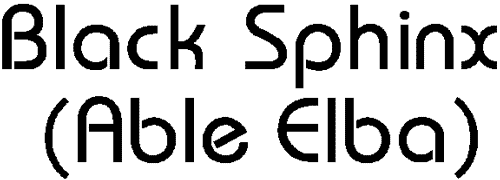
4.0 Latin Decorative
4.1 Family Kind
Sub-digits
0-Any
1-No Fit
2-Latin Text
3-Latin Hand Written
4-Latin Decorative
5-Latin Symbol
Description
Latin Decorative faces are those that are designed more for impact than readability. Usually Decoratives are used singly or in small groups, for special purposes. Small cap fonts are also included in this group because they have become unusual enough to be considered special purpose fonts.
4.2 Class
Sub-digits
0-Any
1-No Fit
2-Derivative
3-Non-standard Topology
4-Non-standard Elements
5- Non-standard Aspect
6-Initials
7-Cartoon
8-Picture Stems
9-Ornamented
10-Text and Background
11-Collage
12-Montage
Description
The class is the general look and feel of the face. Faces should be classed with as low a digit as is reasonable. Derivative is Decoratives that are closely derived standard text forms. Non-standard Topology has unusual forms for entire letters but still uses standard stems. Non-standard Elements has usual forms but unusual treatments of parts of them, such as serifs or ascenders. Non-standard Aspect has the usual letter forms but unusual proportions such as very high or very low waists. Initials is for faces that only have majuscule characters, no minuscules. Often these characters are highly ornamented. Cartoon faces have the entire letter made up of a single picture that form the outline of the character. Picture Stem faces have each stem made up of a picture or pictures and the letters made from groups of these elements. Ornamented faces have additional flourishes and details added to the character. Text and Background faces have the characters displayed as the absence of pattern on a patterned background. In Collage faces the characters are made up of repeating nonstandard elements. In Montage faces the characters are made up of nonrepeating nonstandard elements.
Examples
Figure 22 - Decorative Classes
2 - Derivative
3 - Non-standard Topology
4 - Non-standard Elements
5 - Non-standard Aspect
6 - Initials
7 - Cartoon
8 - Picture Stems
9 - Ornamented
10 - Text and Background
11 - Collage
12 - Montage
4.3 Weight
Sub-digits
0-Any
1-No Fit
2-Very Light
3-Light
4-Thin
5-Book
6-Medium
7-Demi
8-Bold
9-Heavy
10-Black
11-Extra Black
Description
The Weight digit classifies the appearance of a fonts’ stroke thickness in relation to its height. This is expressed as a ratio taken from two measurements on the uppercase E glyph.
Measurements
Two measurements are required for classification of the Weight digit.
CapH
CapH (Figure 2) is the cap height and is measured on the uppercase H, from the top-most Y-extent to the bottom-most Y-extent at the theoretical midline of the left vertical stroke. The midline is chosen to avoid serifs that extend the height or depth of the character shape. This is a vertical measurement even if the glyph is italic or oblique.
WStem(E)
The width of the vertical stem, WStem(E) (Figure 5), is measured horizontally on the uppercase E at a point halfway between the upper two arms. This measurement is the width of the vertical stem, or back bone, of the character and is taken perpendicular to the stem. In the case of an oblique letter, the horizontal axis is shifted to be perpendicular to the stem. Note: For the purpose of serif designs, this measurement is applied to the large (400 point) uppercase I glyph.
Calculated Variables
Only one calculated variable (WeightRat) is used to determine the Weight digit for the PANOSE Typeface Matching System. The WeightRat variable is calculated by dividing the cap height by the width of the vertical stem.
WeightRat = CapH / WStem(E)
Classification
To determine the exact PANOSE Weight digit, round the WeightRat value to two decimal places and match it in the following table:
0-Any
1-No fit
2- Very Light………………WeightRat ³ 35
3-Light……………….18 £WeightRat < 35
4-Thin………………..10 £WeightRat < 18
5-Book……………….7.5 £WeightRat < 10
6-Medium……………5.5 £WeightRat < 7.5
7-Demi……………….4.5 £WeightRat < 5.5
8-Bold……………….3.5 £WeightRat < 4.5
9-Heavy……………..2.5 £WeightRat < 3.5
10-Black……………..2.0 £WeightRat < 2.5
11-Extra Black……………..WeightRat < 2.0
Notes
The tolerances of the weight classification have been determined by testing a variety of fonts. While this has provided reasonable averages for the ranges of weights, these will not always directly correspond with a font’s external name. It is not uncommon to have a font that contains the word “Bold” in the name that actually classifies as 7-Demibold.
In addition, certain families that have a surplus of font weights may not progress smoothly through the differing classification options. It is, however, rare that two fonts within the same family will have two weights that exist in the same classification category. Notify Hewlett-Packard of any cases where this occurs.
Caution on measurements: When measuring a design with a highly rounded or bowed inside stem, be certain to calculate the correct theoretical edge for the location of the stem edge. Curved stems can alter the measurements for classification significantly enough to alter the resulting category. Very ragged or highly ornamented stems can also throw this measure off. In such cases, try to pick an “average” width by looking at the face.
13 - Cursive
14 - Blackletter
15 - Swash Variance
4.10 Range of Characters
Sub-digits
0-Any
1-No Fit
2-Extended Collection
3-Litterals
4-No Lower Case
5-Small Caps
Description
This digit quantifies the range of characters available in the decorative font. Extended Collection means that the full font range is available. Literals means that only the alphanumerics are available. No Lower Case means just that. Small Caps means that only small caps are available in the font, no upper or lower case.